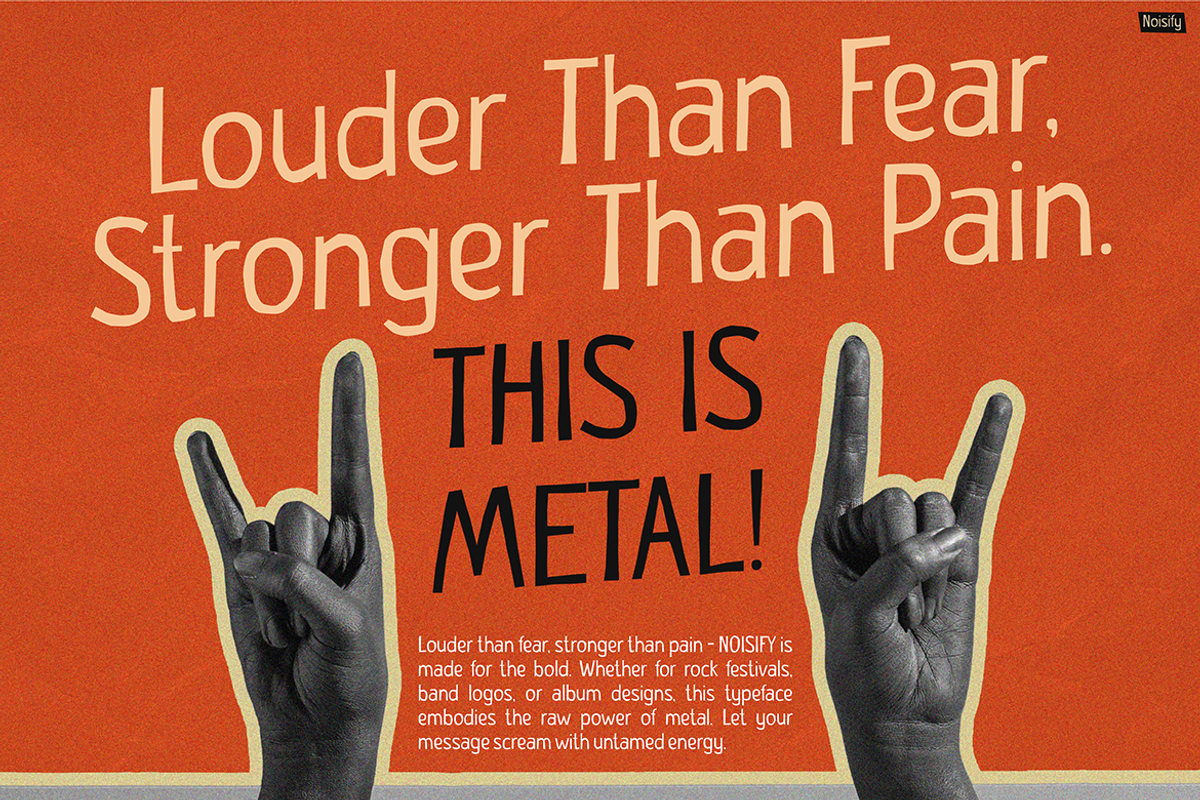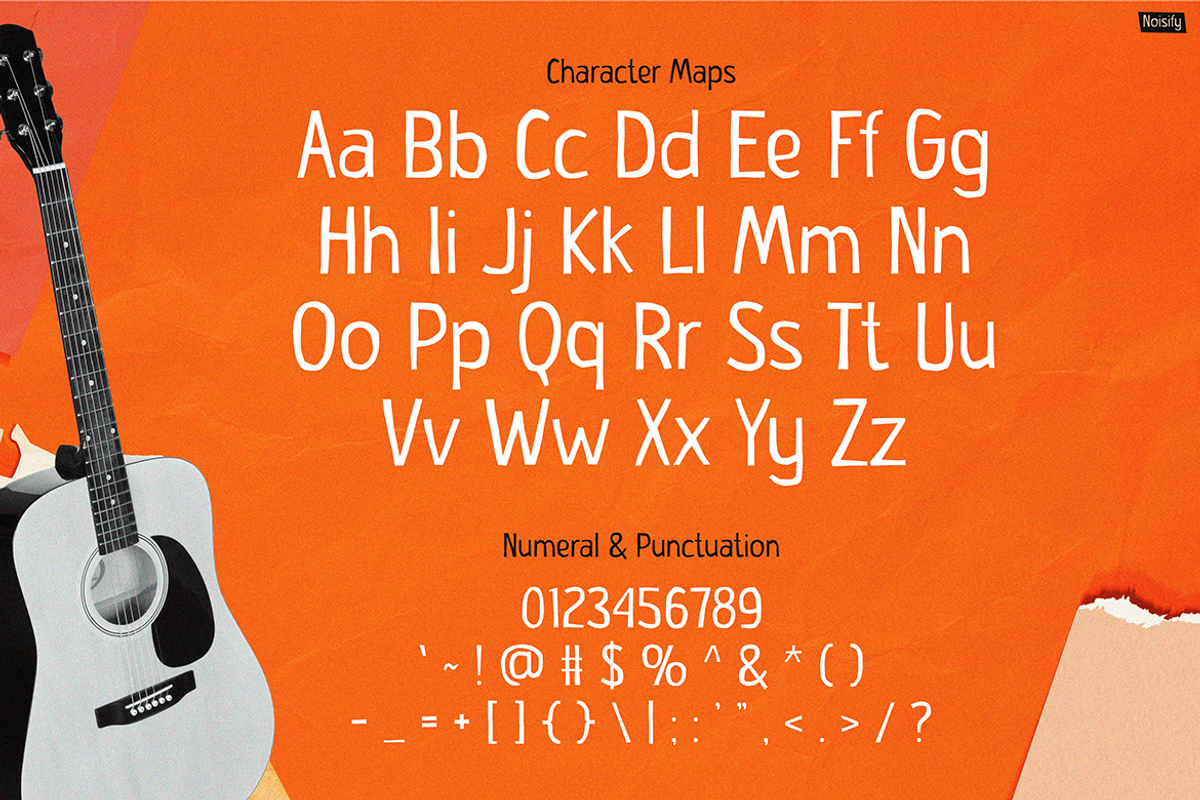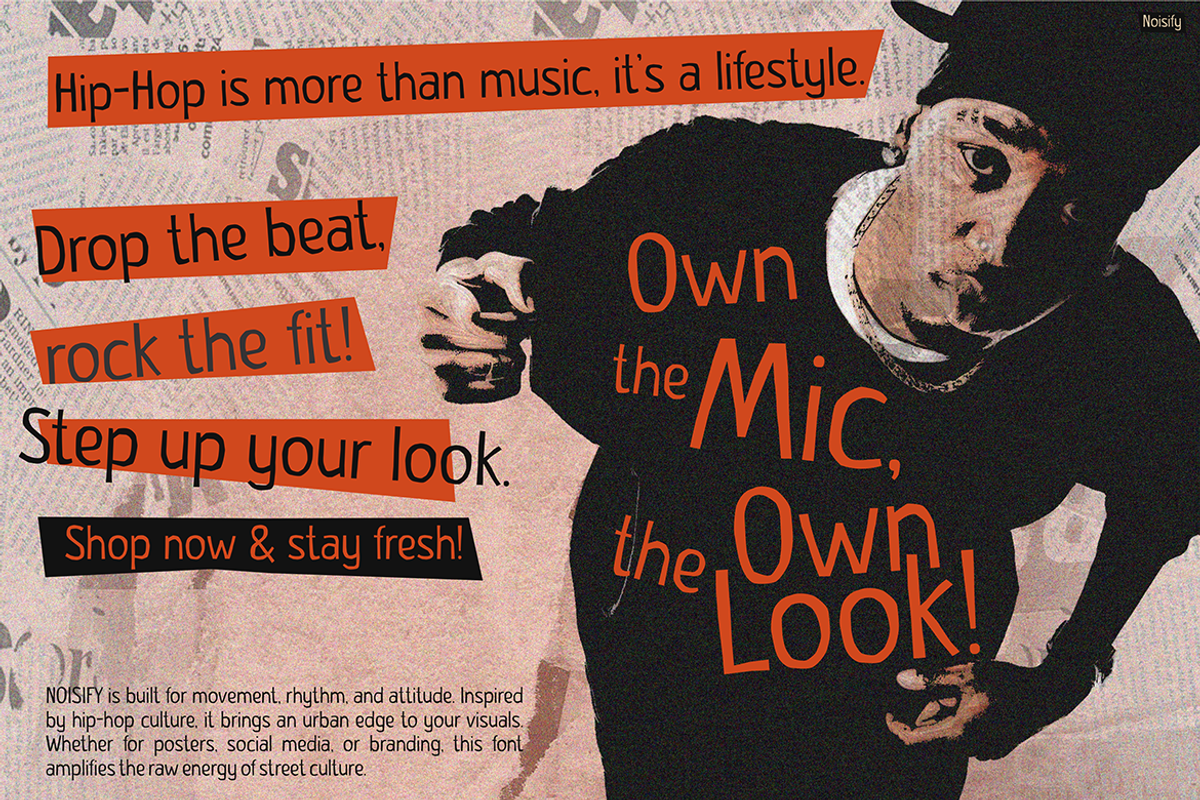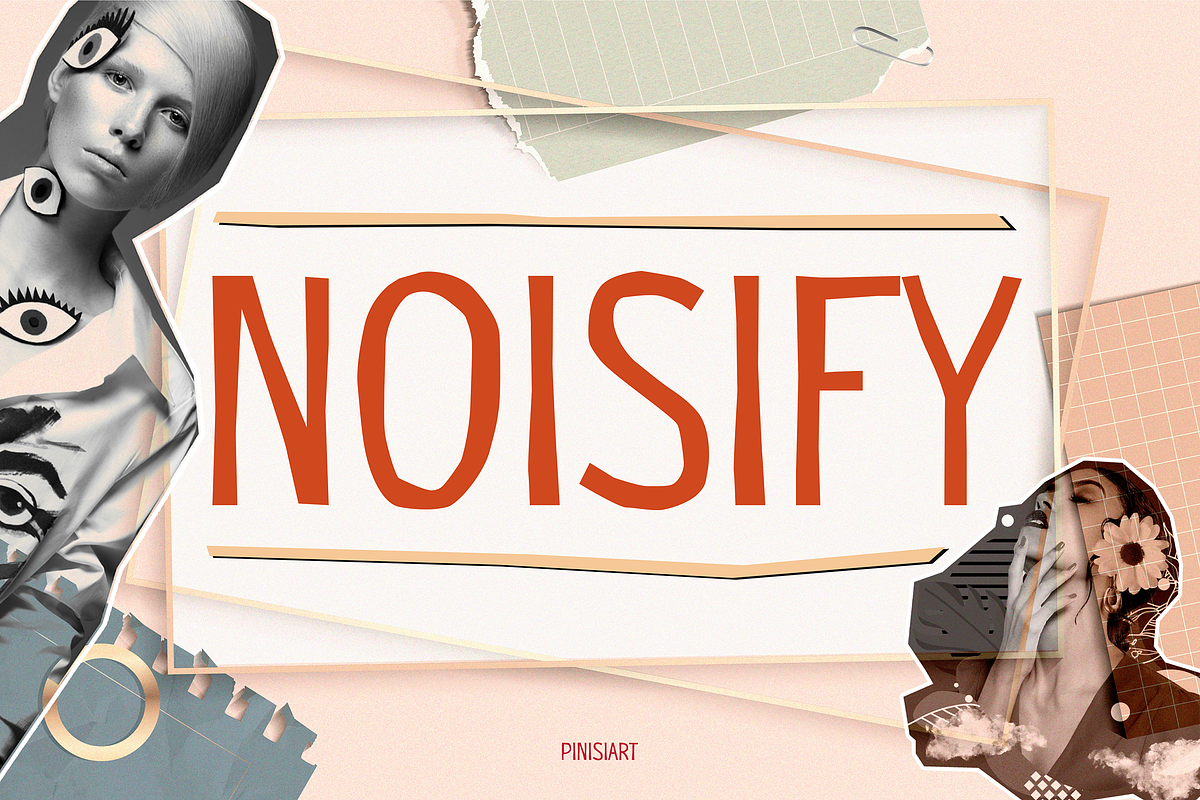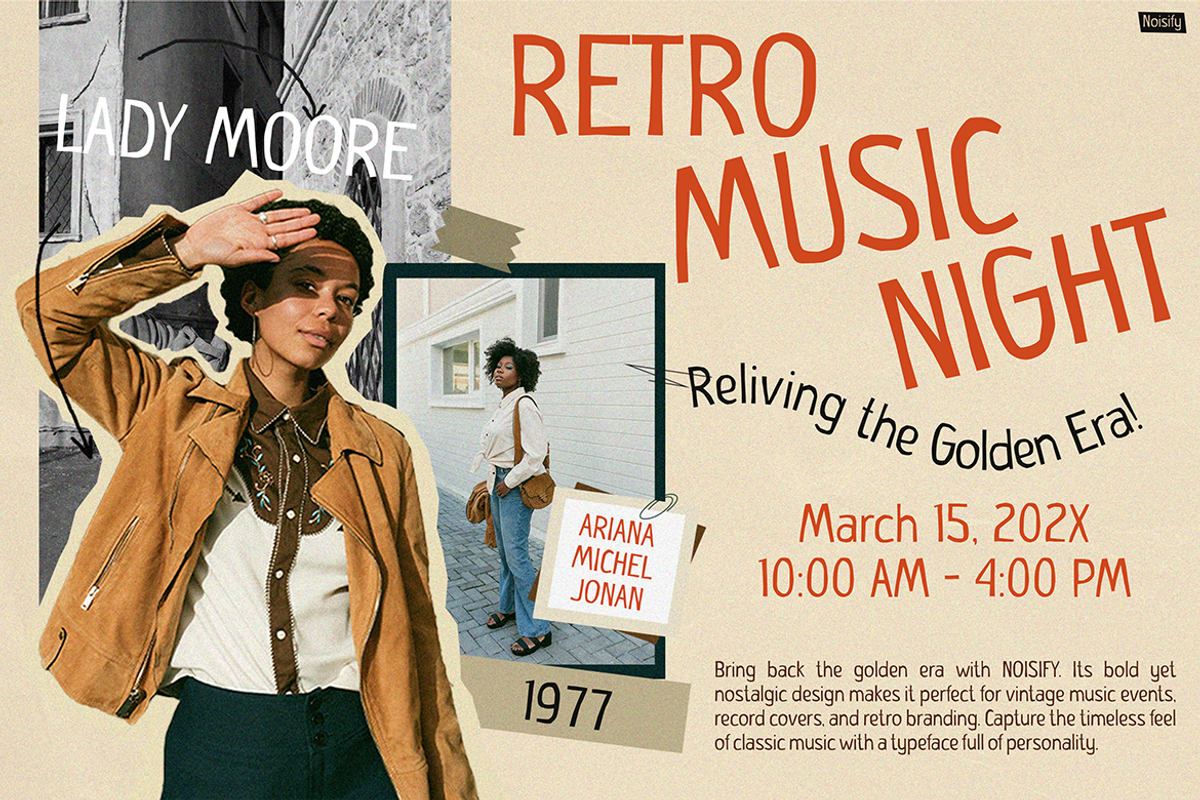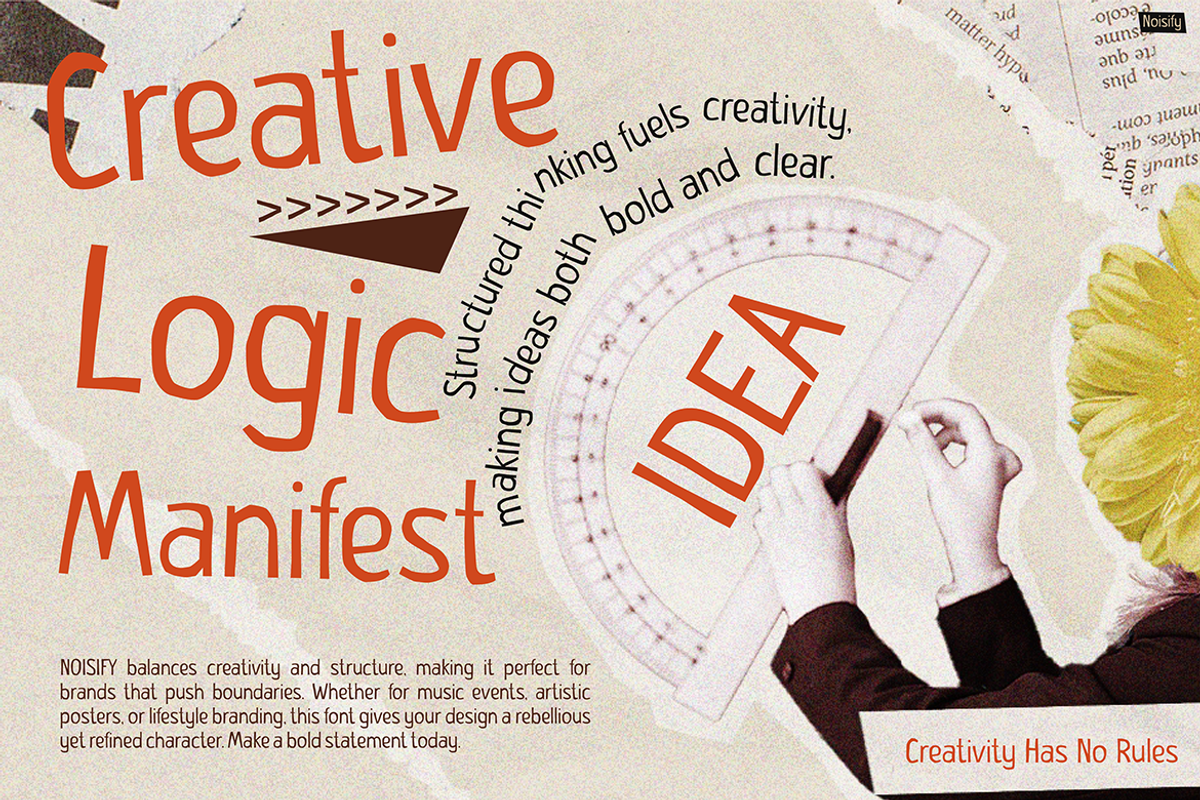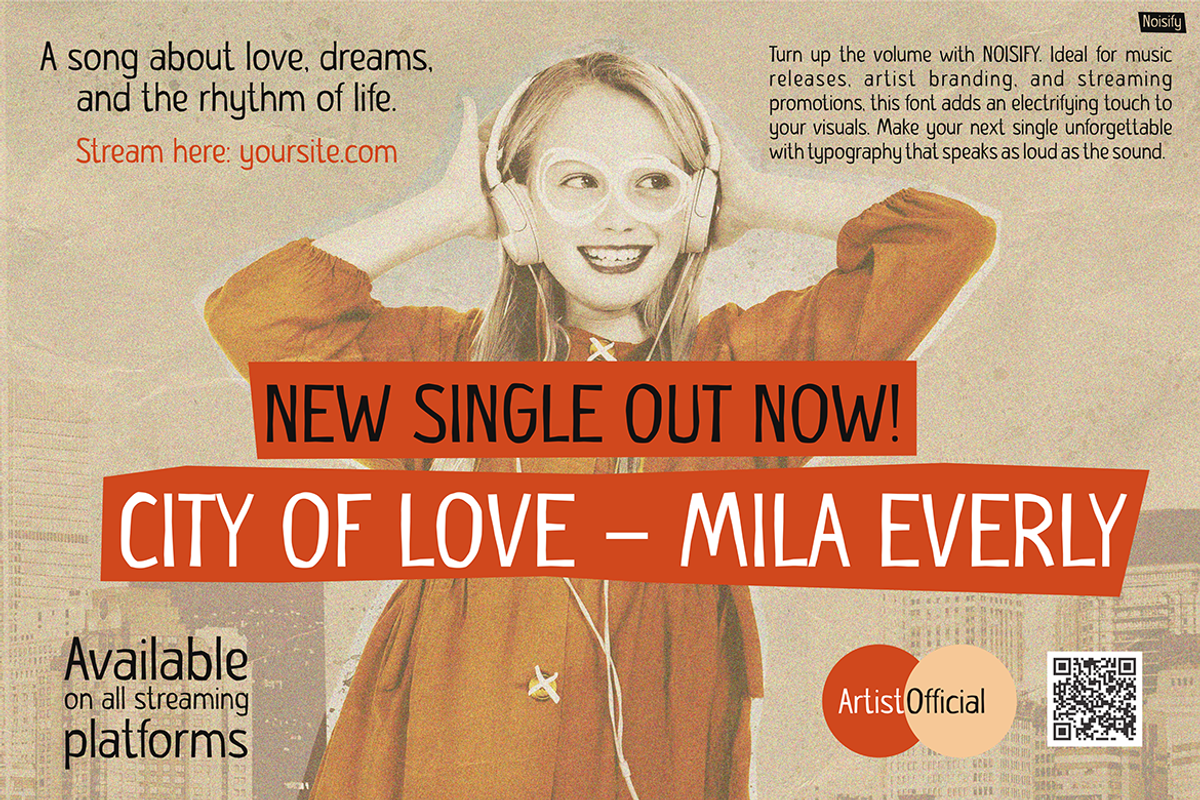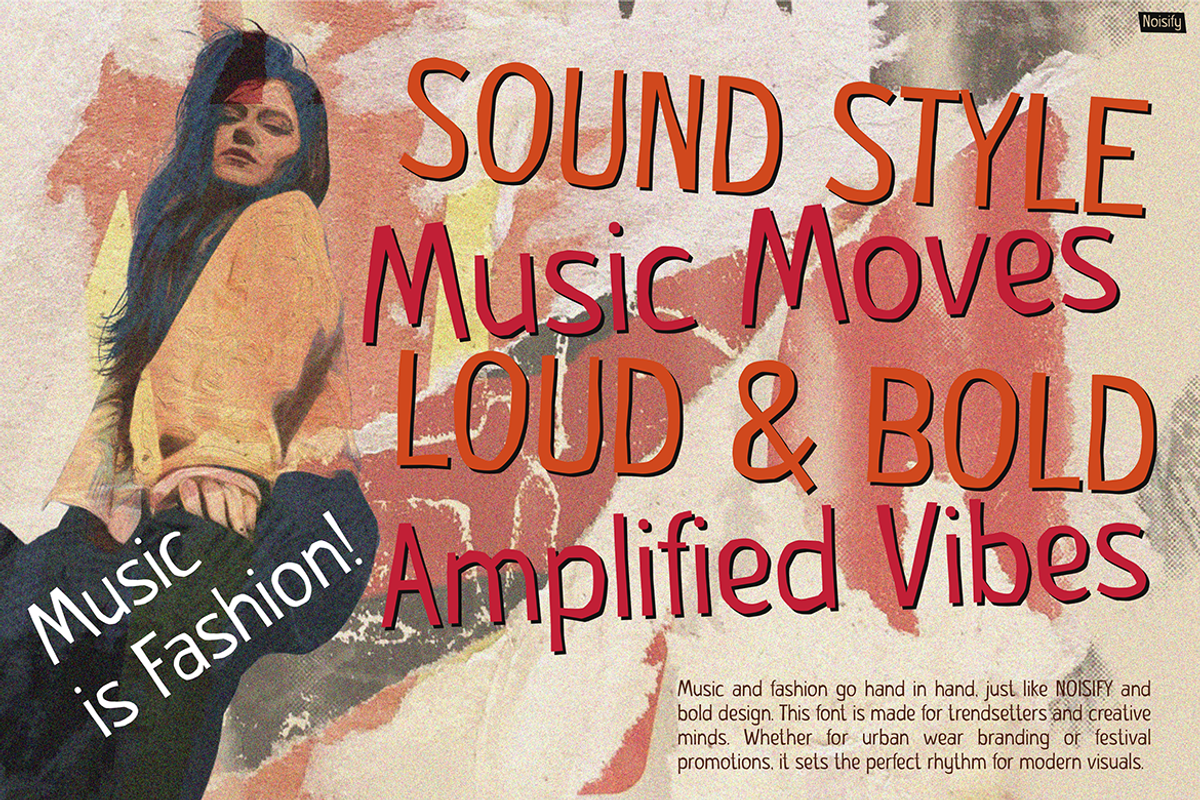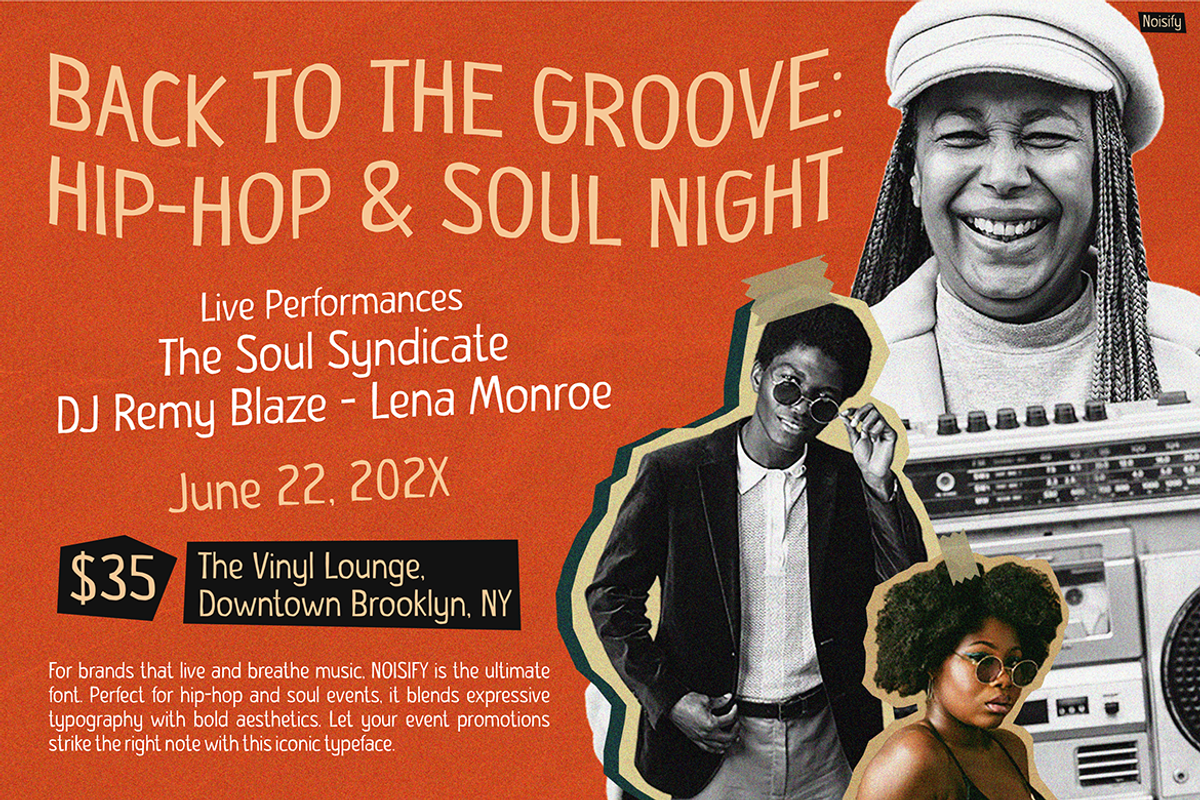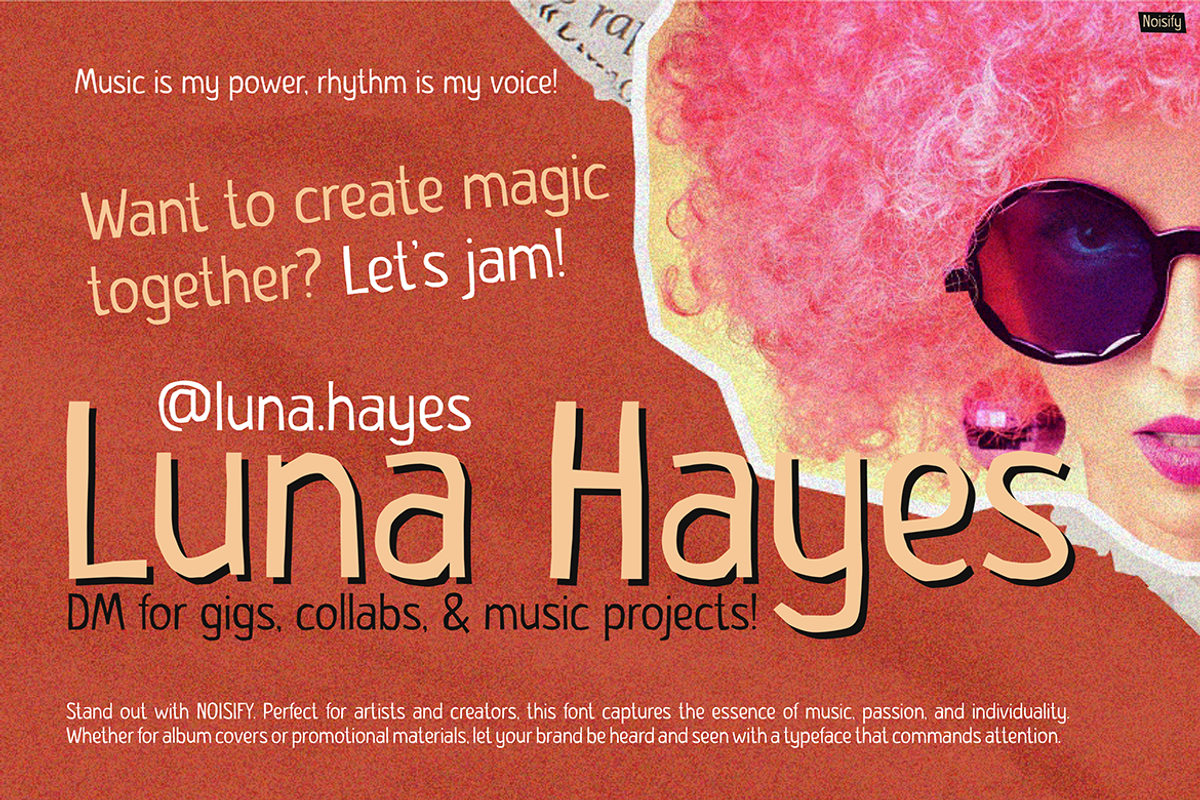
Noisify
Music Font Noisify is a bold, dynamic typeface that truly embodies rhythm, movement, and street culture. Inspired by hip-hop and urban aesthetics, it instantly adds energy to your visuals. With hand-drawn, slightly irregular strokes, Noisify exudes a raw, expressive personality. As a result, it makes every design feel authentic and alive.
Designed for impact, Noisify effortlessly blends graffiti’s rebellious spirit with handwritten typography. Its imperfect yet intentional strokes enhance self-expression, making it perfect for creatives seeking energy, authenticity, and boldness. Furthermore, its high contrast and edgy shapes ensure every word stands out. Consequently, your message will resonate powerfully with the audience.
Whether you’re designing posters, social media content, apparel branding, or album covers, Music Font Noisify helps create a strong identity. More than just a font, it’s a voice—loud, unapologetic, and full of character.